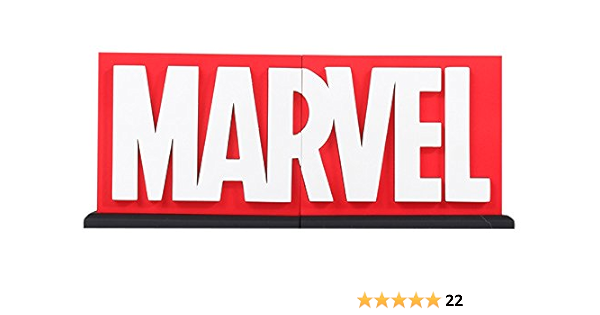
Marvel Logo Font
Marvel logo font. Download and install the Marvel free font family by Carolina Trebol as well as testdrive and see a complete character set FAQ Contact 100% Free For Commercial Use Hot;. Most fonts on this site are freeware, some are shareware or linkware. However, ever since the company started making their own films starting with 08's Iron Man, it's become something more a stamp of quality and a sign to audiences that the movie is part of the massive and beloved Marvel Cinematic Universe That recognition passes over to the logo the big, comicbook style font on a red background.
The Marvel logo font is one meant to transmit that the company is unique, modern, and professional, as well as trendy, attractive, and compelling It is meant to draw in fans of the old stories and characters, as well as to get new potential fans interested in the universe. Fandom Font Pack (17 Marvel Universe Fonts) 60 Font Variations (Digital Download) F8fulDesigns From shop F8fulDesigns 5 out of 5 Marvel Classic Logo SVG, Marvel Digital Cut File, Marvel Logo Svg Jpg Png Eps Dxf, Cricut Design AnandEdwinShop From shop AnandEdwinShop 45 out of 5 stars (2) 2 reviews. This tutorial is also going to cover marvel logo intro, marvel logo intro after effects, Marvel logo intro template, marvel logo intro after effects tutorial, marvel logo animation, marvel comics animation logo, Comic book logo intro, logo intro after effects and many more.
Since 09, Marvel Entertainment LLC is a subsidiary of The Walt Disney Company This transaction did not change the comic brand at all Today’s logo with a simple Benton Sans Extra Comp Black font. Font Squirrel relies on advertising in order to keep bringing you great new free fonts and to keep making improvements to the web font generator. About Marvel Font This Marvel Font Is In Demo Made In FontLab Read more Free Download Licensed as Demo Commercial licenses There are no commercial license purchase options Contact the designer Report Font 19 Created almost 2 years ago Downloads 2724 Collections 184 Likes Related Styles.
Marvel Studios Logo Font Generator, Awesome Logos, Marvel Studios Logo Font Generator. A modern sans serif typeface name as Marvel Font The Marvel Font is based on Marvel comic books Marvel Comics is an American company that publishes movies and comic books Marvel companies introduced most favourite super Heroes include the Fantastic Four, Iron Man, SpiderMan, and many more Carolina Trebol is a keen font designer. Marvel Logo Format AI 1450.
The CaptainMarvel font contains 231 beautifully designed characters ️ Customize your own preview on FFontsnet to make sure it`s the right one for your designs. The logo shrinks to the topleft corner, a "MARVEL PRODUCTIONS LTD" is drawn out with a star below it in a groovy font The byline "A CADENCE COMPANY" is seen below the logo. Made by Carolina Trebol Marvel is a contemporary and multipurpose sans serif typeface family It can be used in headlines as well as text settings in websites, books and magazines It was designed to look sharp, modern and even technical while keeping a unique personality.
However, ever since the company started making their own films starting with 08's Iron Man, it's become something more a stamp of quality and a sign to audiences that the movie is part of the massive and beloved Marvel Cinematic Universe That recognition passes over to the logo the big, comicbook style font on a red background. The Captain Marvel logotype is based on Jared K Fletcher’s original design Looking at the upcoming Marvel movie logos together, the typography of one in particular sticks out as noticeably different to the others While most of the logos feature squareshaped typography, Captain Marvel veers towards the circular. Font Squirrel relies on advertising in order to keep bringing you great new free fonts and to keep making improvements to the web font generator If you are seeing this message, you probably have an ad blocker turned on Please consider disabling it to see content from our partners.
Font Squirrel relies on advertising in order to keep bringing you great new free fonts and to keep making improvements to the web font generator. A modern sans serif typeface name as Marvel Font The Marvel Font is based on Marvel comic books Marvel Comics is an American company that publishes movies and comic books Marvel companies introduced most favourite super Heroes include the Fantastic Four, Iron Man, SpiderMan, and many more Carolina Trebol is a keen font designer. Download and install the Marvel free font family by Carolina Trebol as well as testdrive and see a complete character set FAQ Contact 100% Free For Commercial Use Hot;.
The Marvel font contains 195 beautifully designed characters ️ Customize your own preview on FFontsnet to make sure it`s the right one for your designs. Font Squirrel relies on advertising in order to keep bringing you great new free fonts and to keep making improvements to the web font generator. Marvel is a contemporary and multipurpose sans serif typeface family It can be used in headlines as well as text settings in websites, books and magazines It was designed to look sharp, modern.